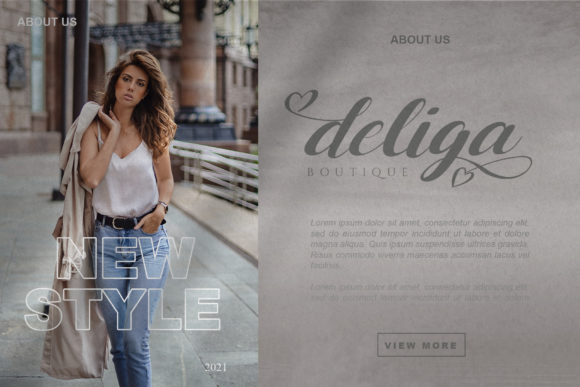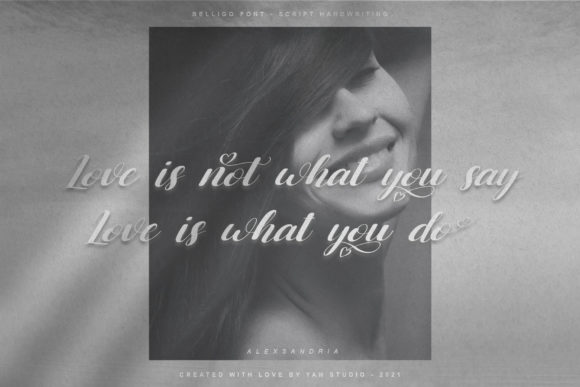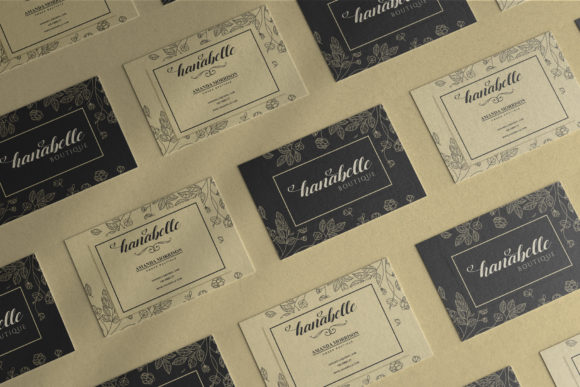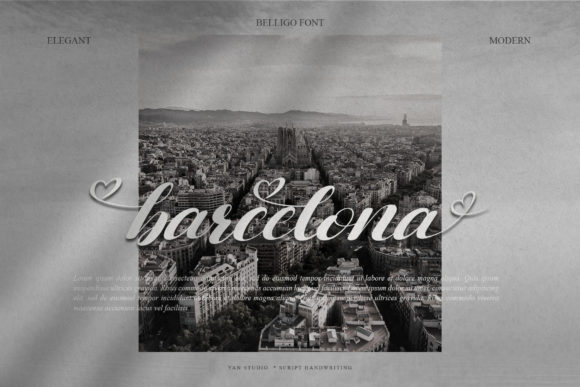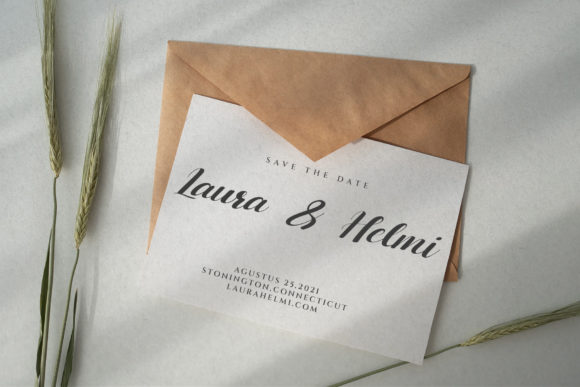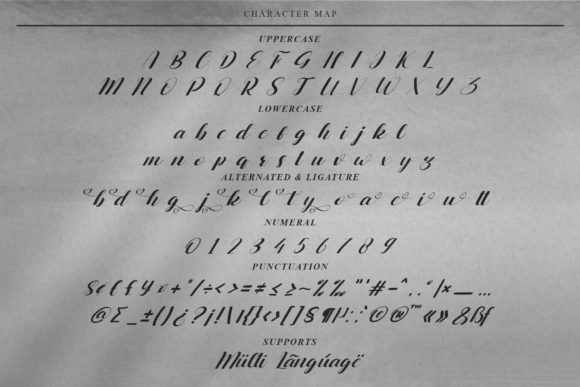
Belligo Font
About Belligo Font
Belligo is a delicate and cursive handwritten font. This gentle font will look gorgeous on a variety of design ideas. It will add a joyful and romantic touch to each of your projects!